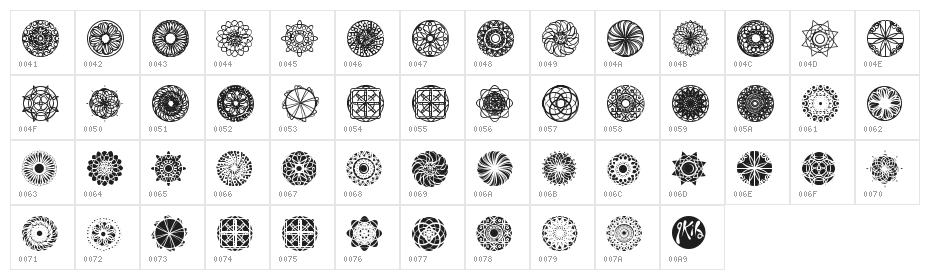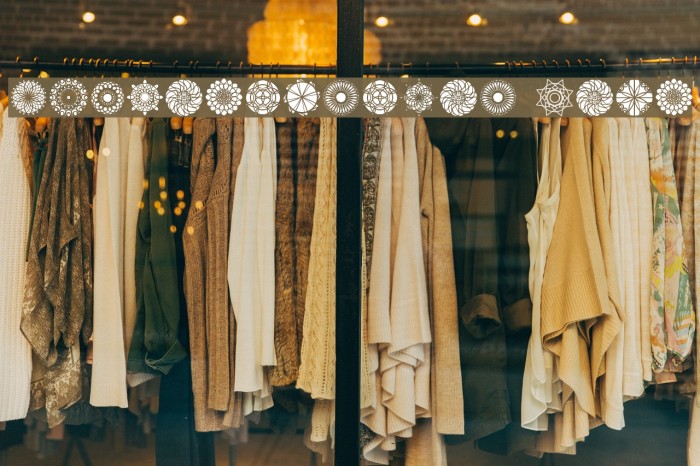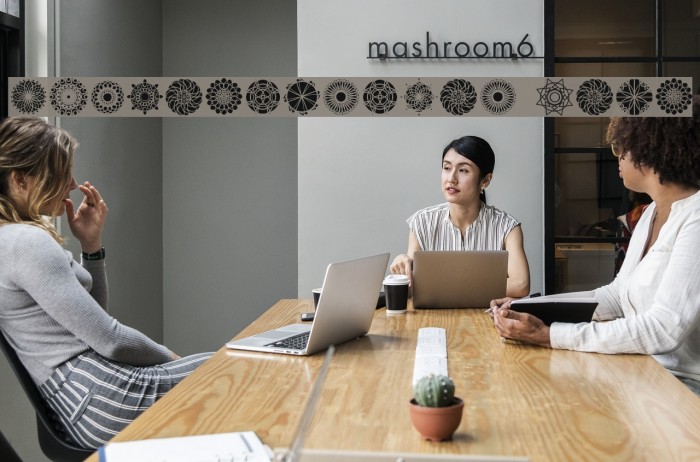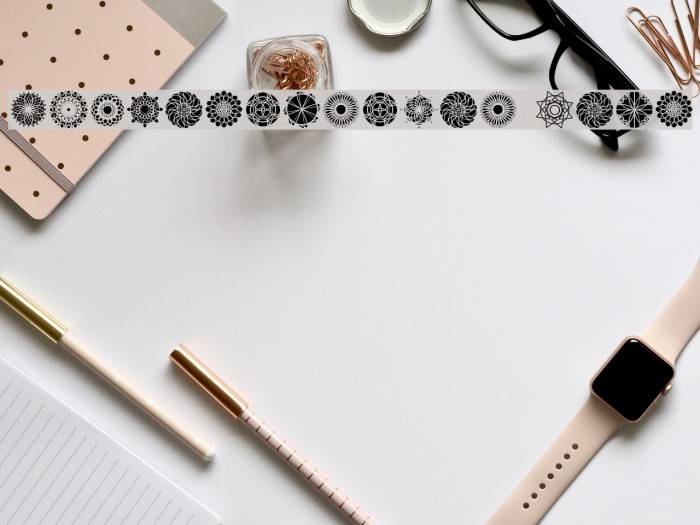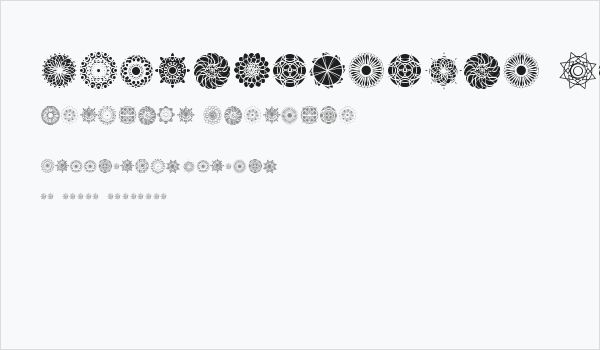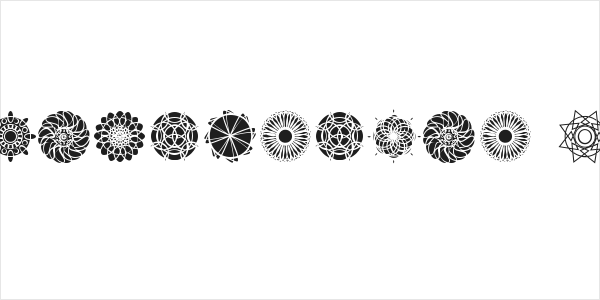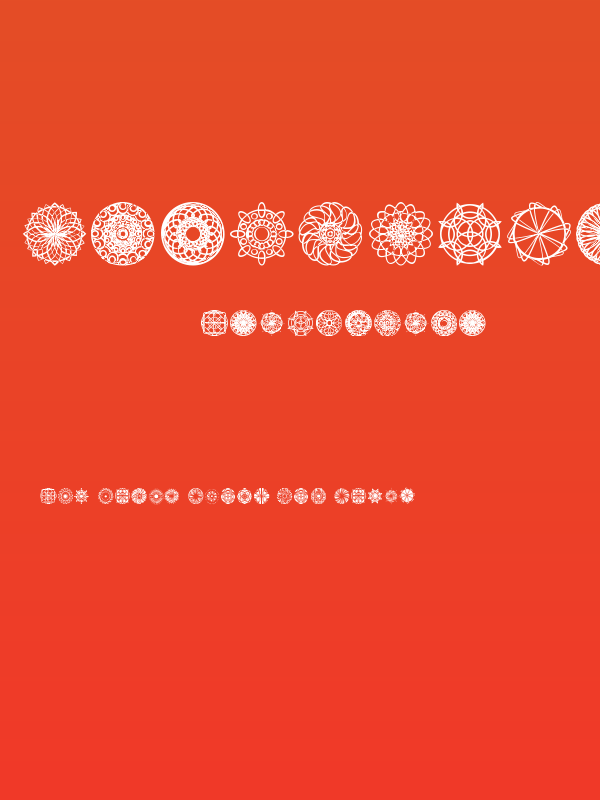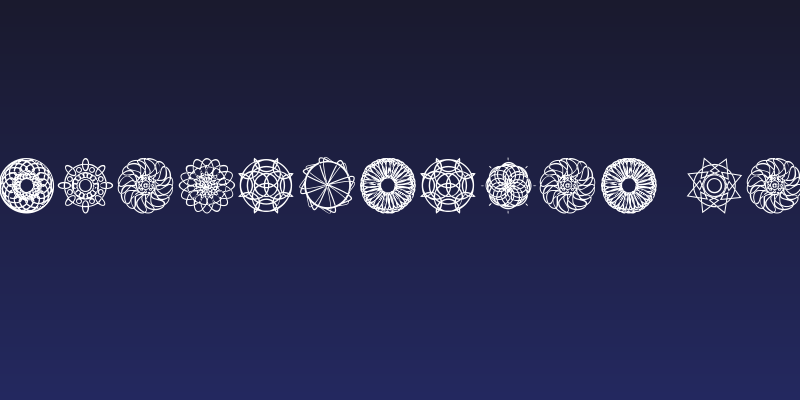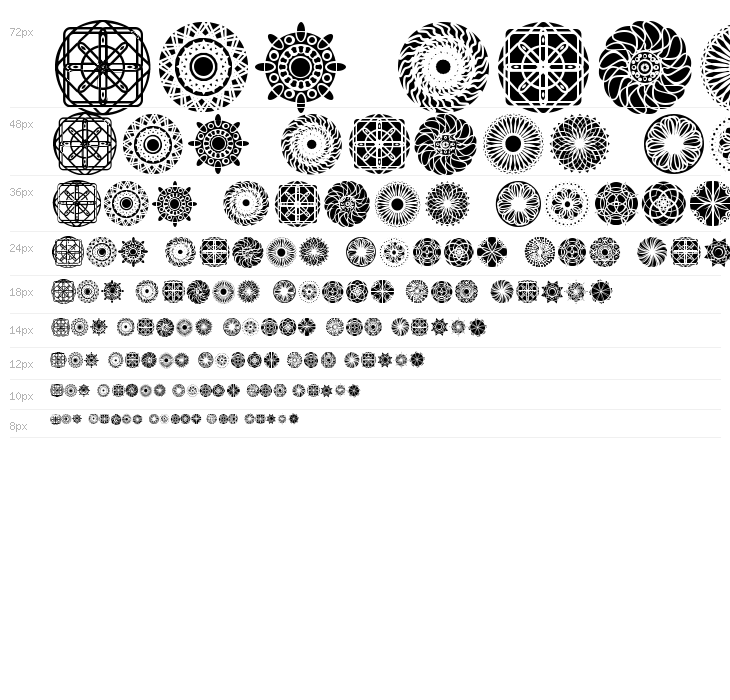
kaleidoscopic Mind Font
A decorative display set featuring intricate, circular, kaleidoscopic mandala-like symbols with high contrast and detailed geometric patterns. Each glyph is unique, emphasizing ornamental and symmetrical design rather than traditional letterforms.
Overall StyleDecorative, Geometric, Ornamental
Use CaseLogos, Decorative elements, Art projects, Headline graphics
Proposed ProjectsPosters, album covers, branding, packaging, digital art, meditation or wellness graphics.